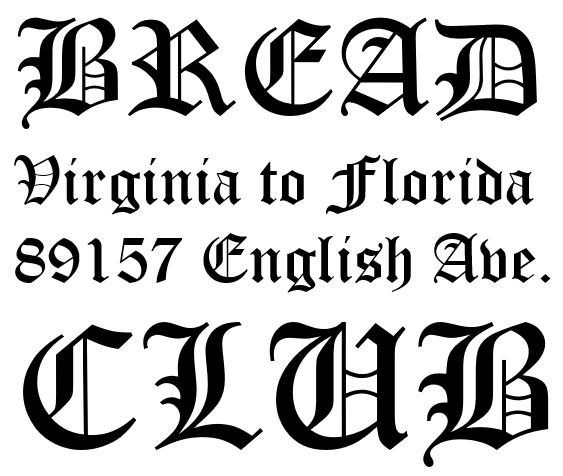
There are two main kinds of what people tend to call Gothic letters: the German Frakturs and the English Blackletter. The Frakturs have an x that looks like an r with a mysterious disease, and the Blackletters have fiddly bits in the middle like those you see in this Old English Text. Little is known about the history of Old English Text, provided here by Monotype Typography, but it has been beautifully made. It looks remarkably like the famous Cloister Black designed by Morris Fuller Benton in 1904.
Designers | Monotype Type Drawing Office |